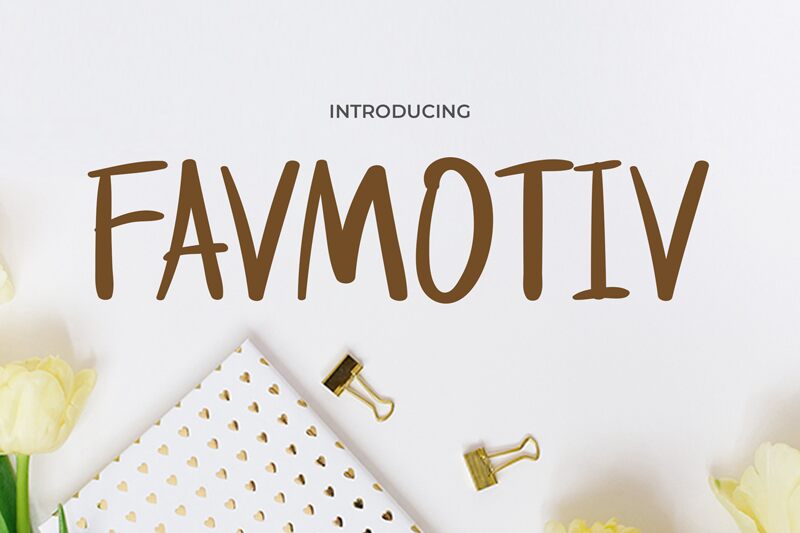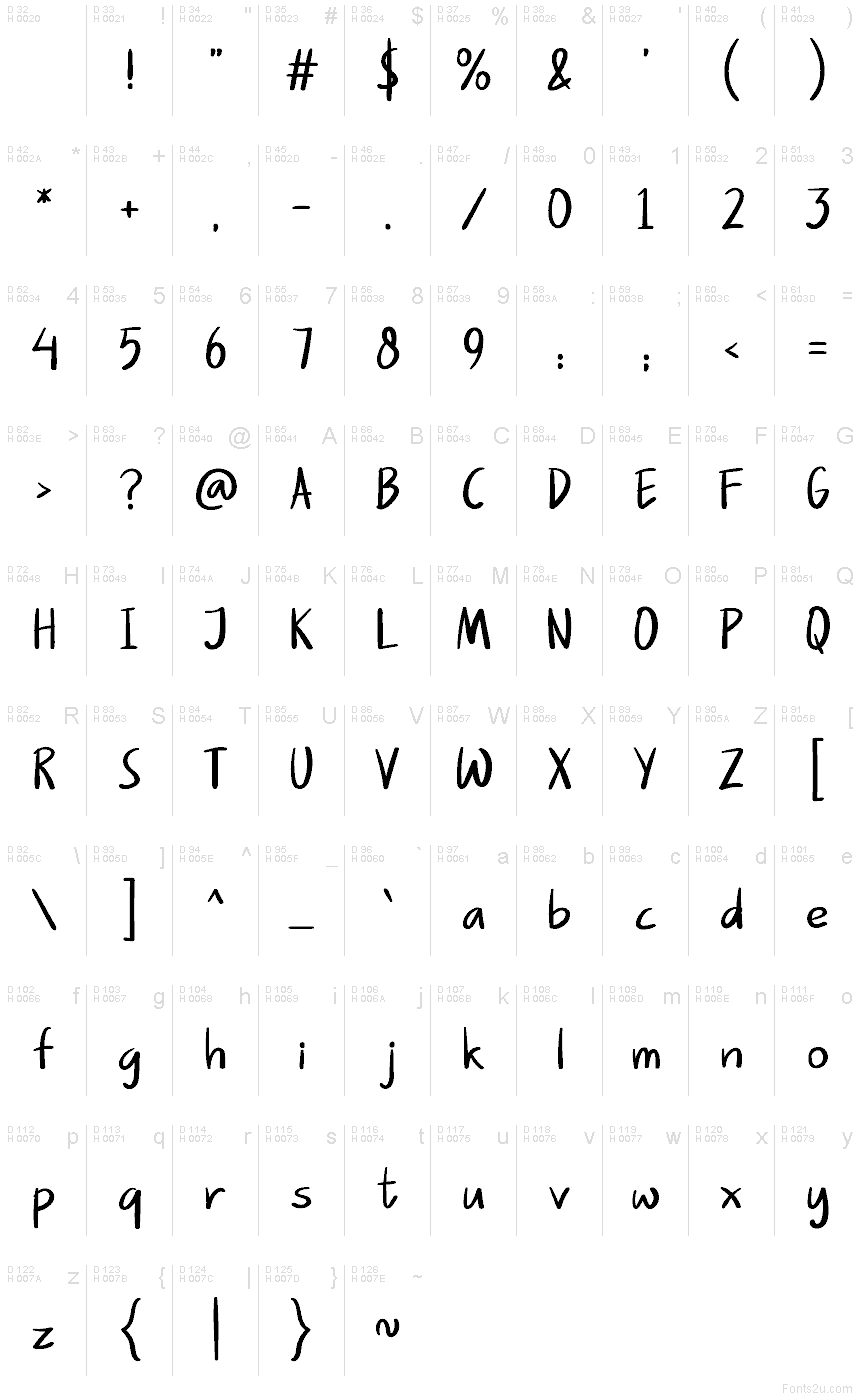
FAVMOTIV
Favmotiv font by Pinisiart is a free handwritten font with a casual style. The characters have irregular forms for a more natural feel and an organic, modern touch.
Favmotiv is suitable for logos, branding projects, package design, headers in magazine covers, flyers, social media banners and posts. It can also be an option in stationary art like business cards or invitations.